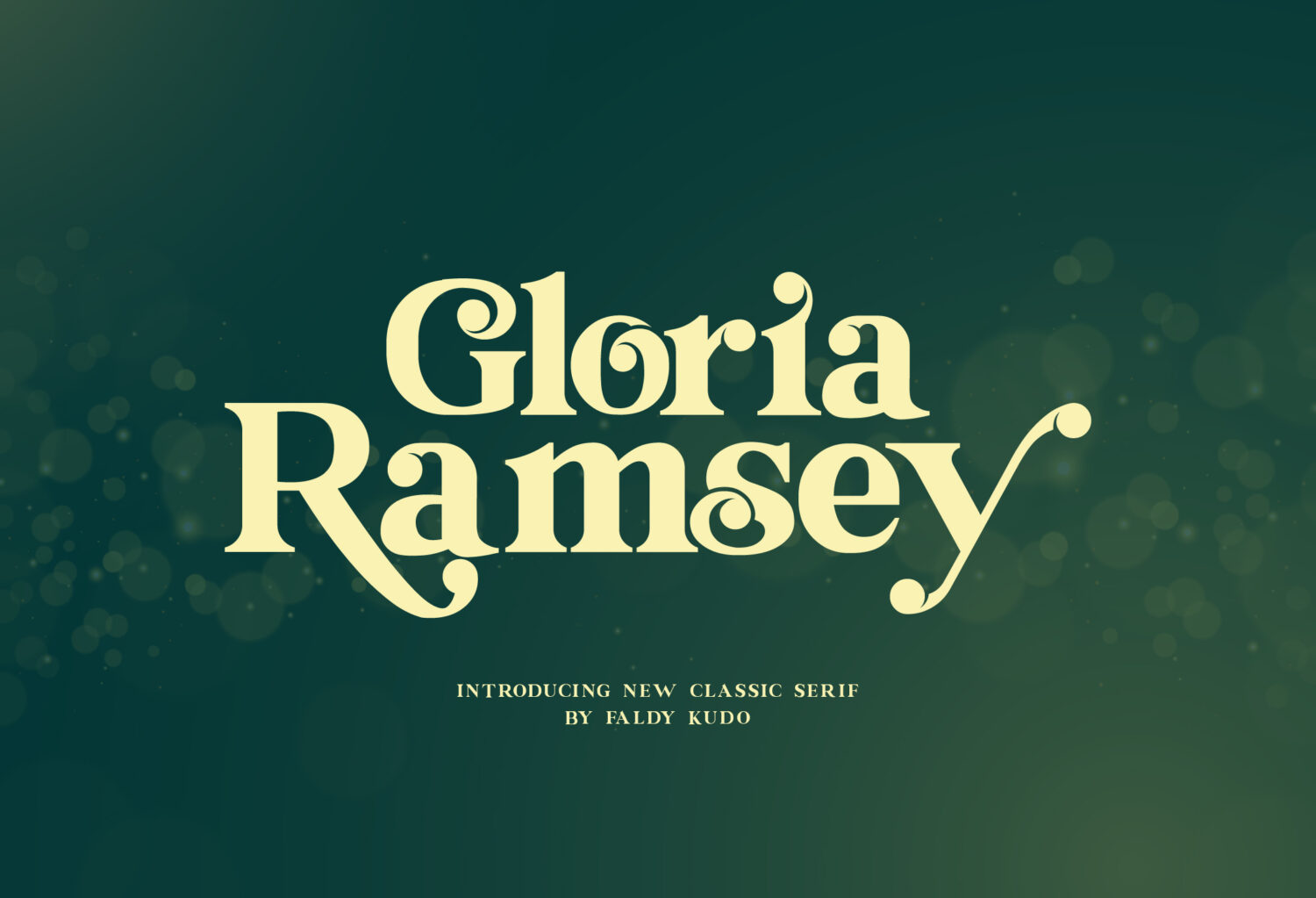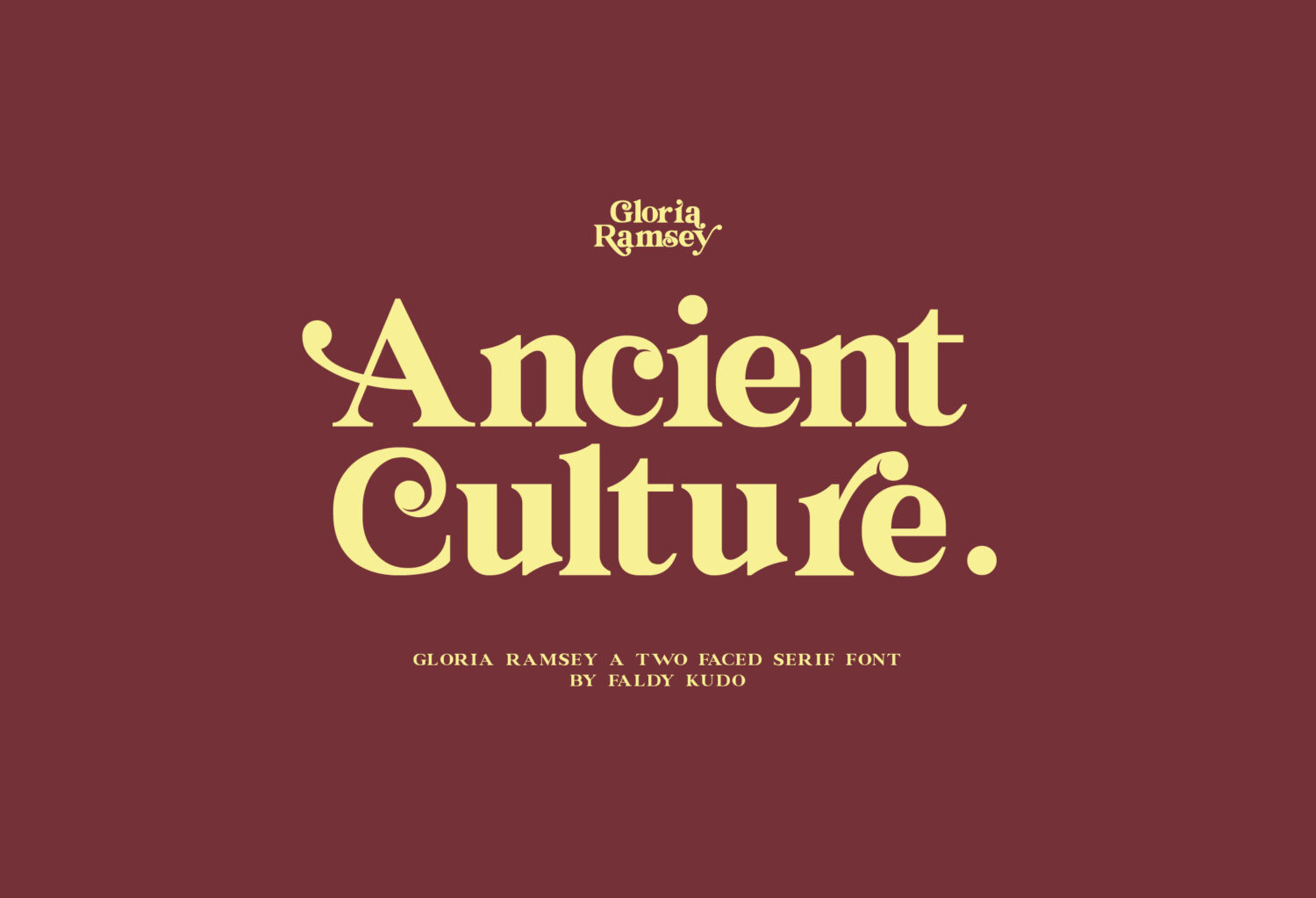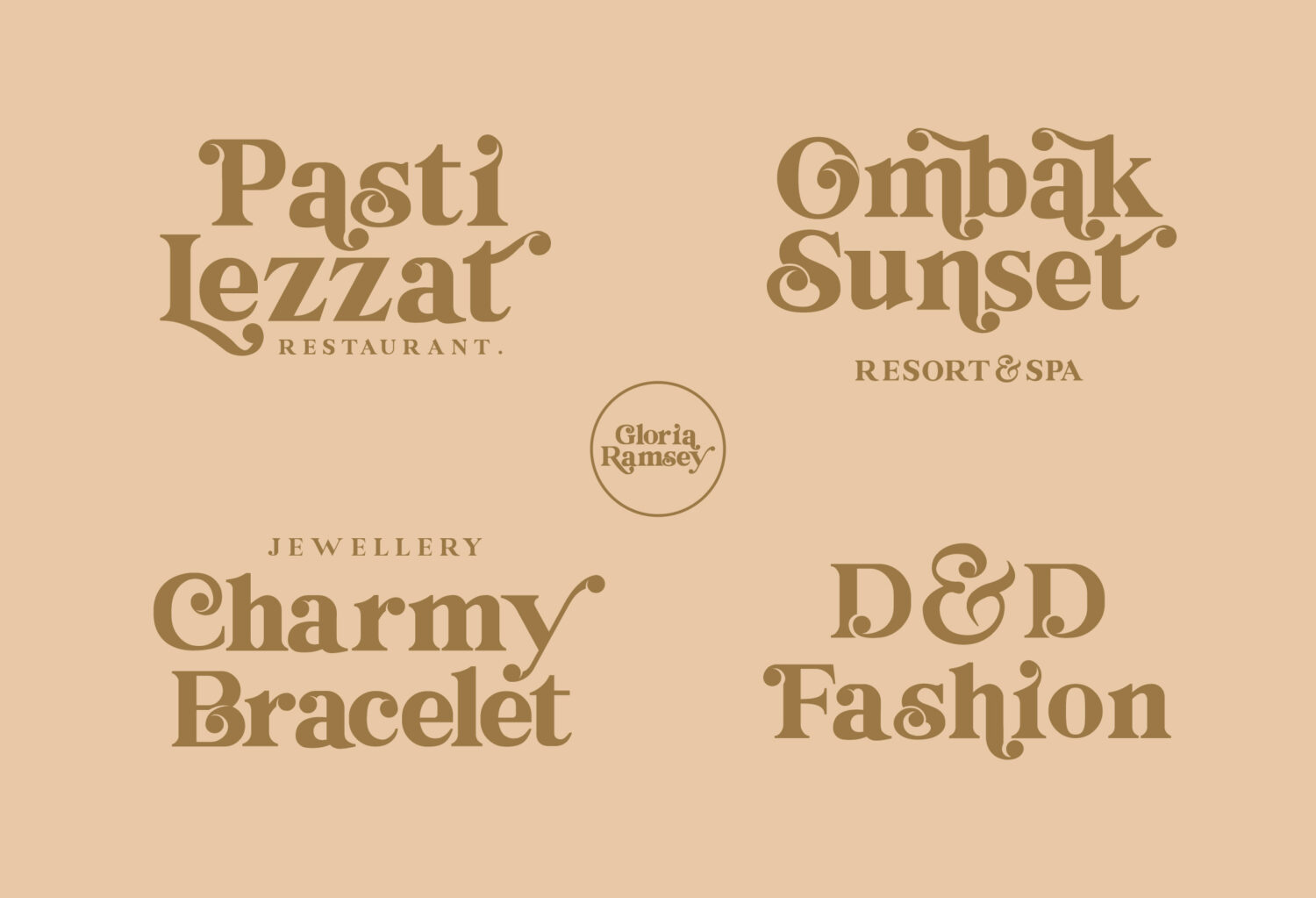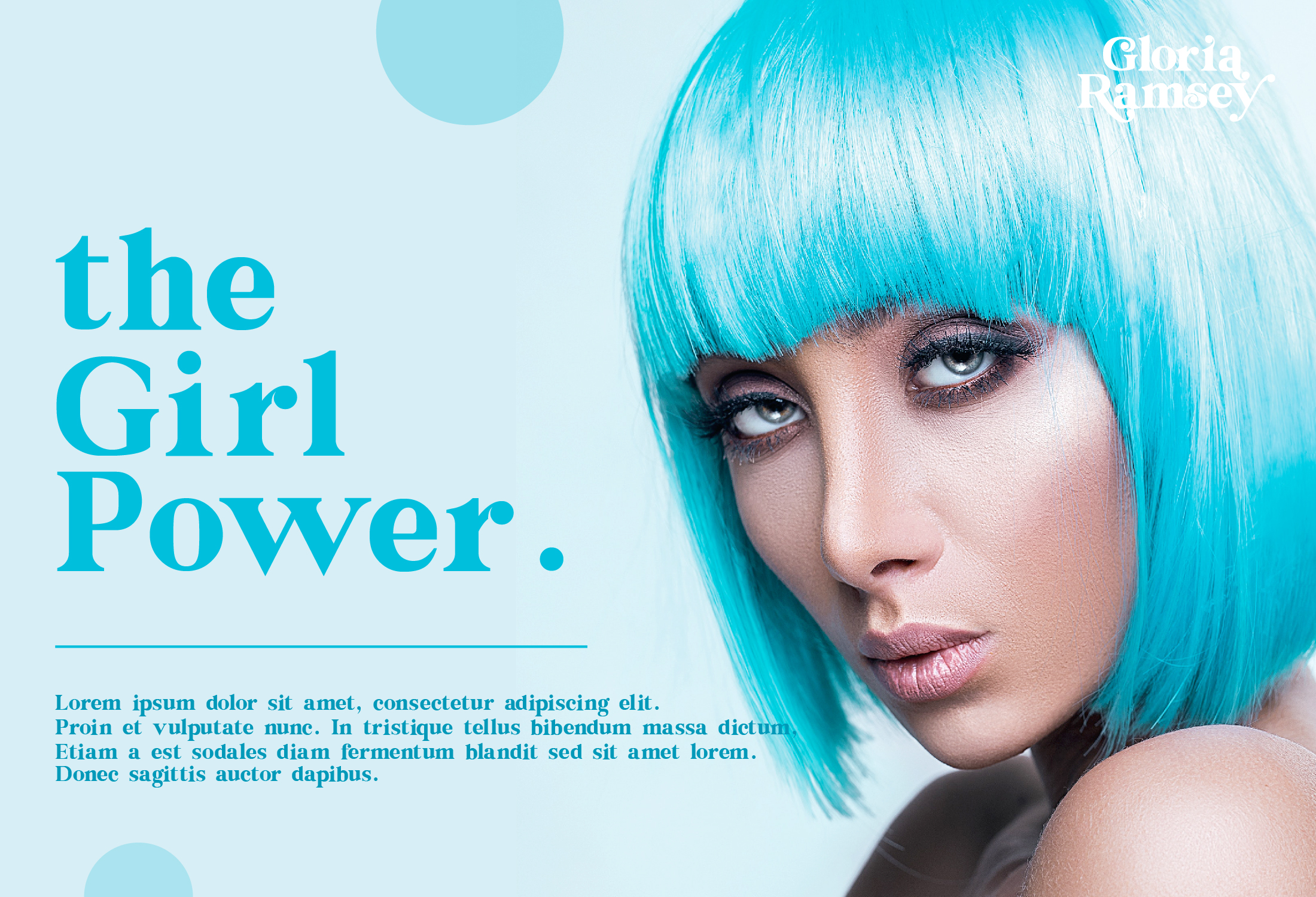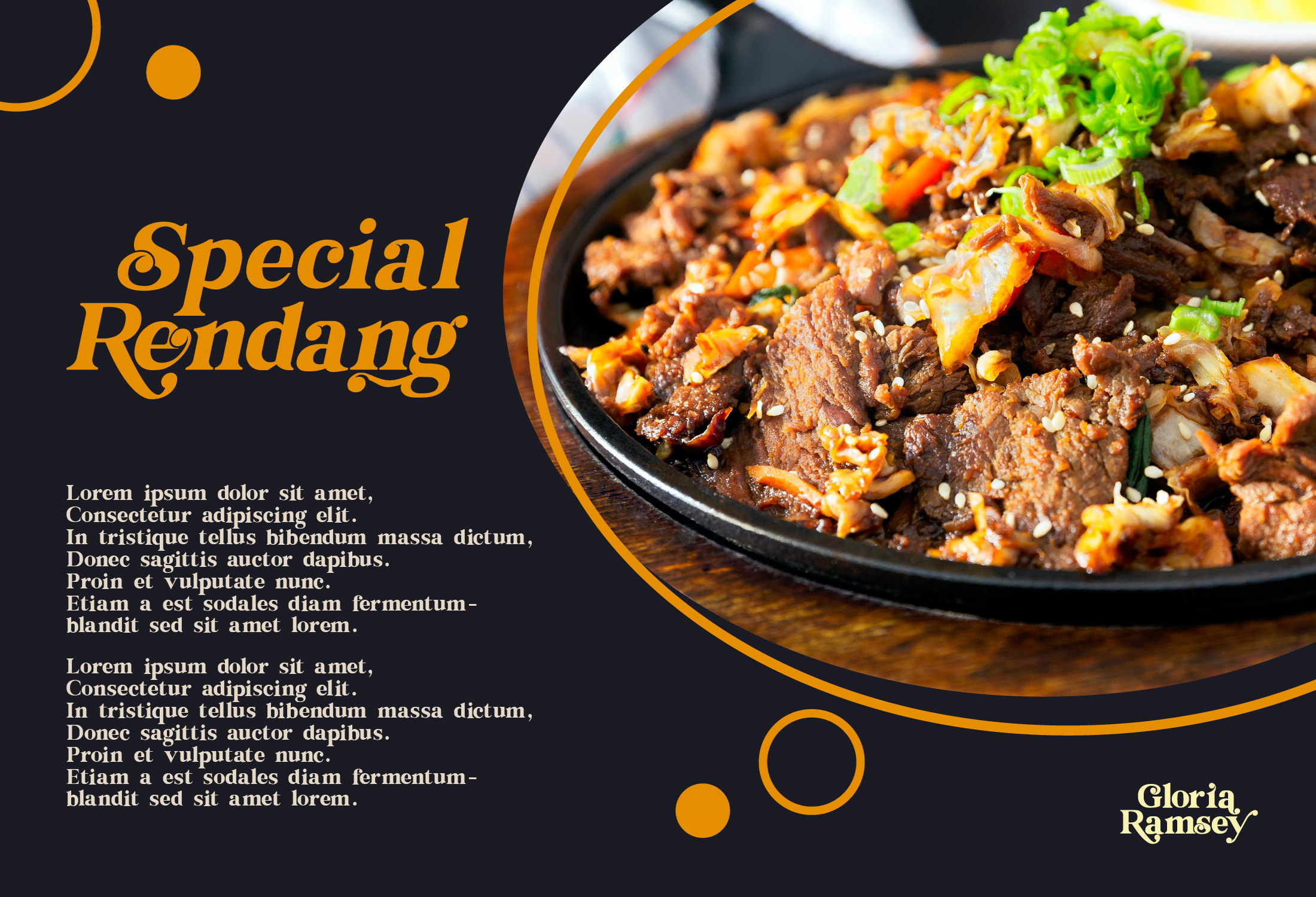
Free Font Gloria Ramsey
Gloria Ramsey is a cute serif font. It features fancy characters, gorgeous alternates, and unique ornaments. Whether you’re looking for fonts for Instagram or calligraphy scripts for DIY projects, Gloria Ramsey will turn any creative idea into a true piece of art. This free typeface was designed by talented Kudo Creative. If you like it don’t forget to check out the full version.